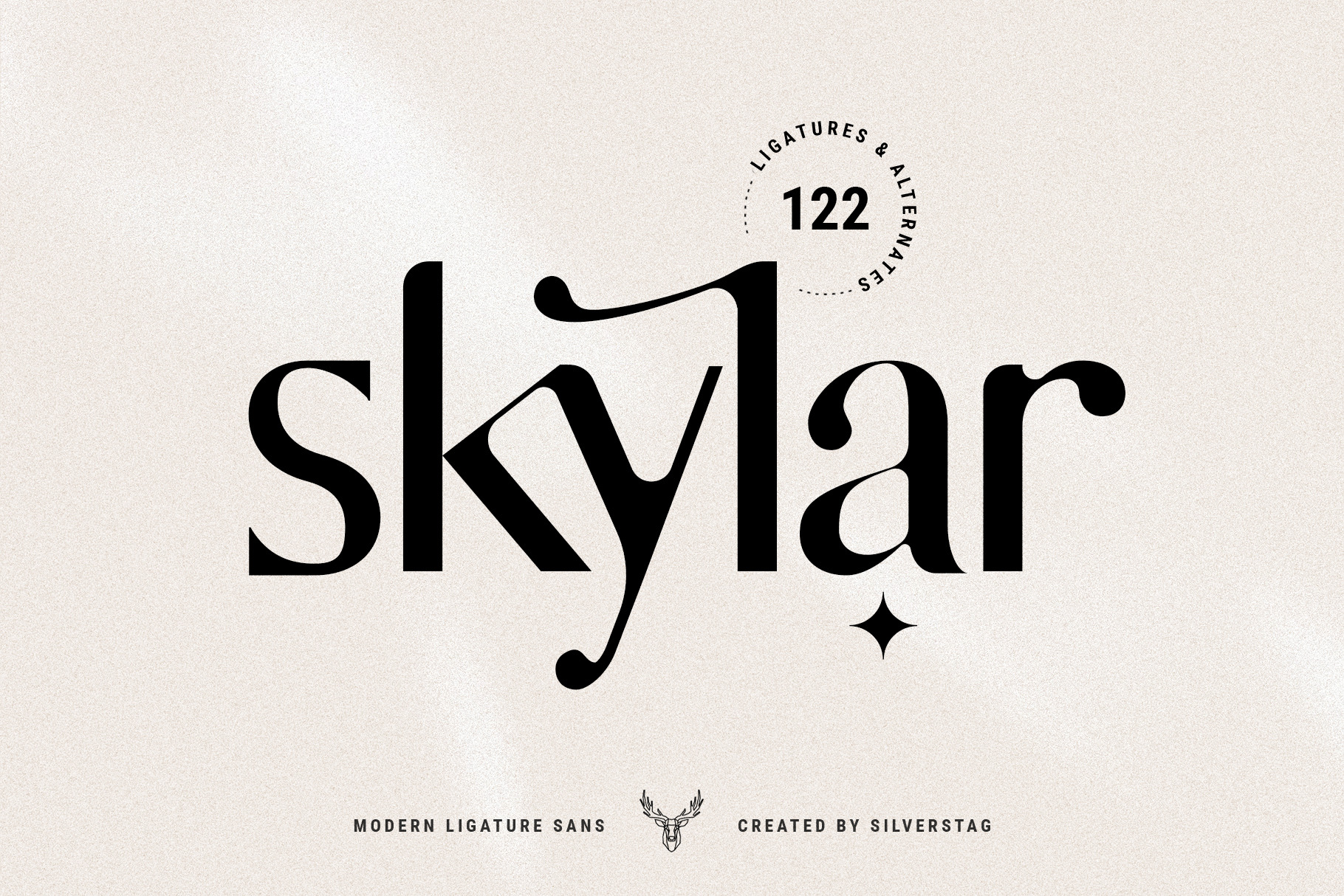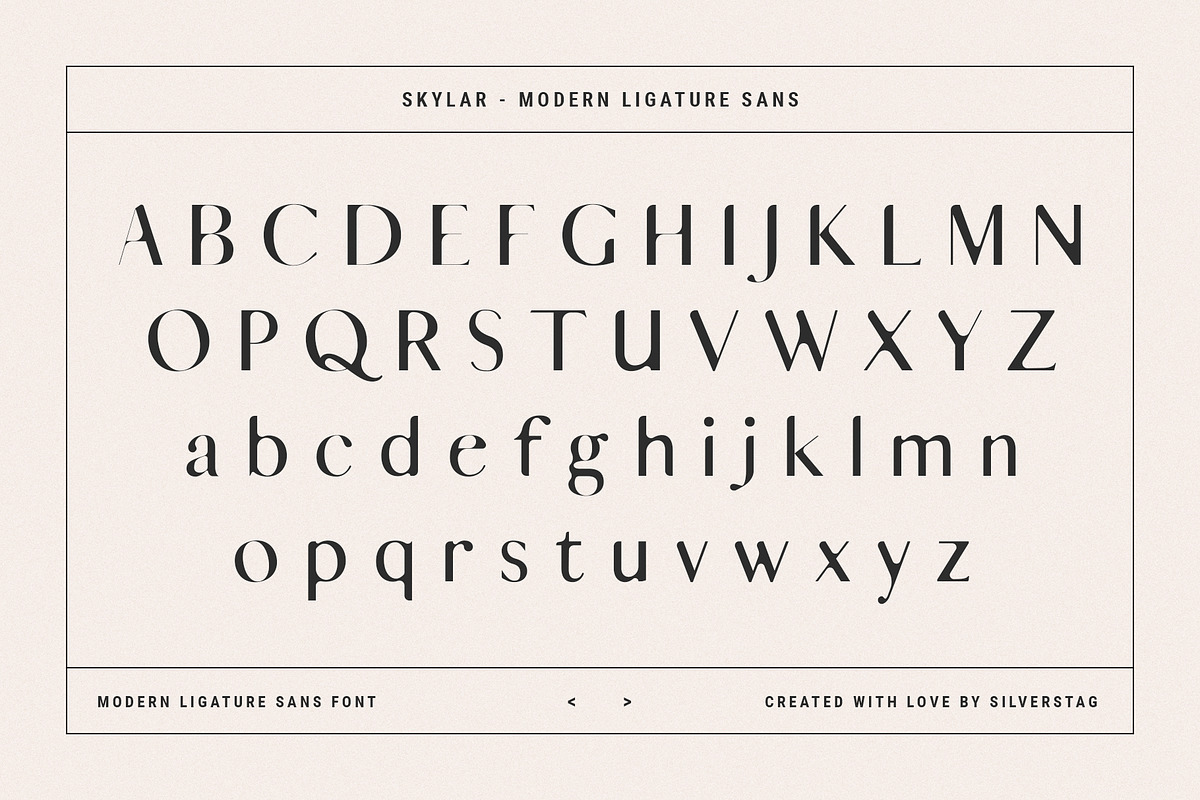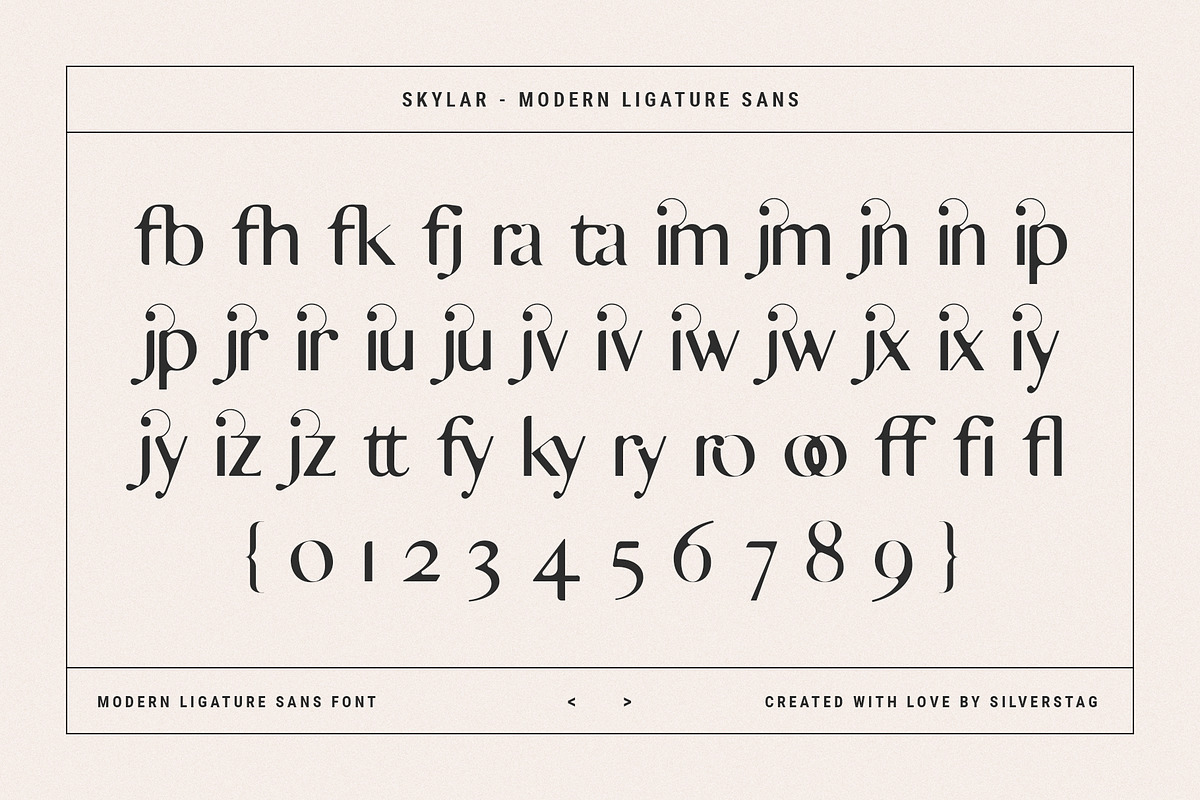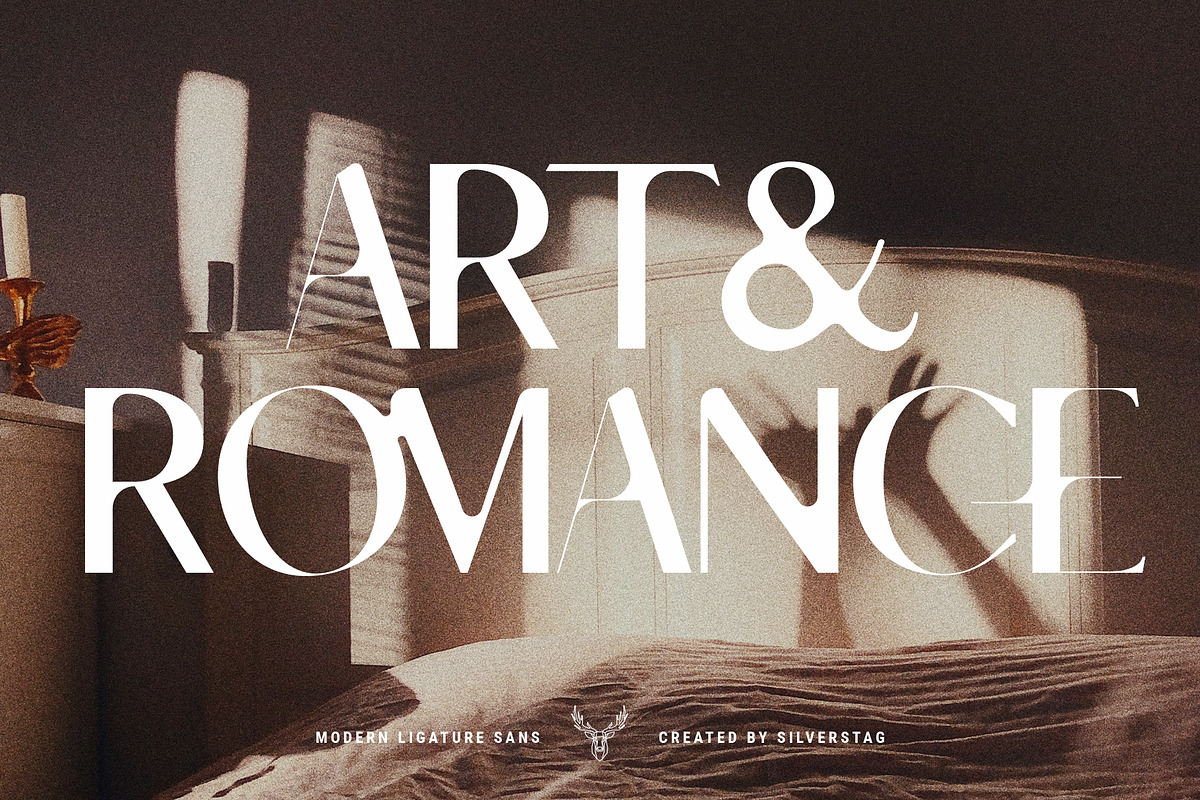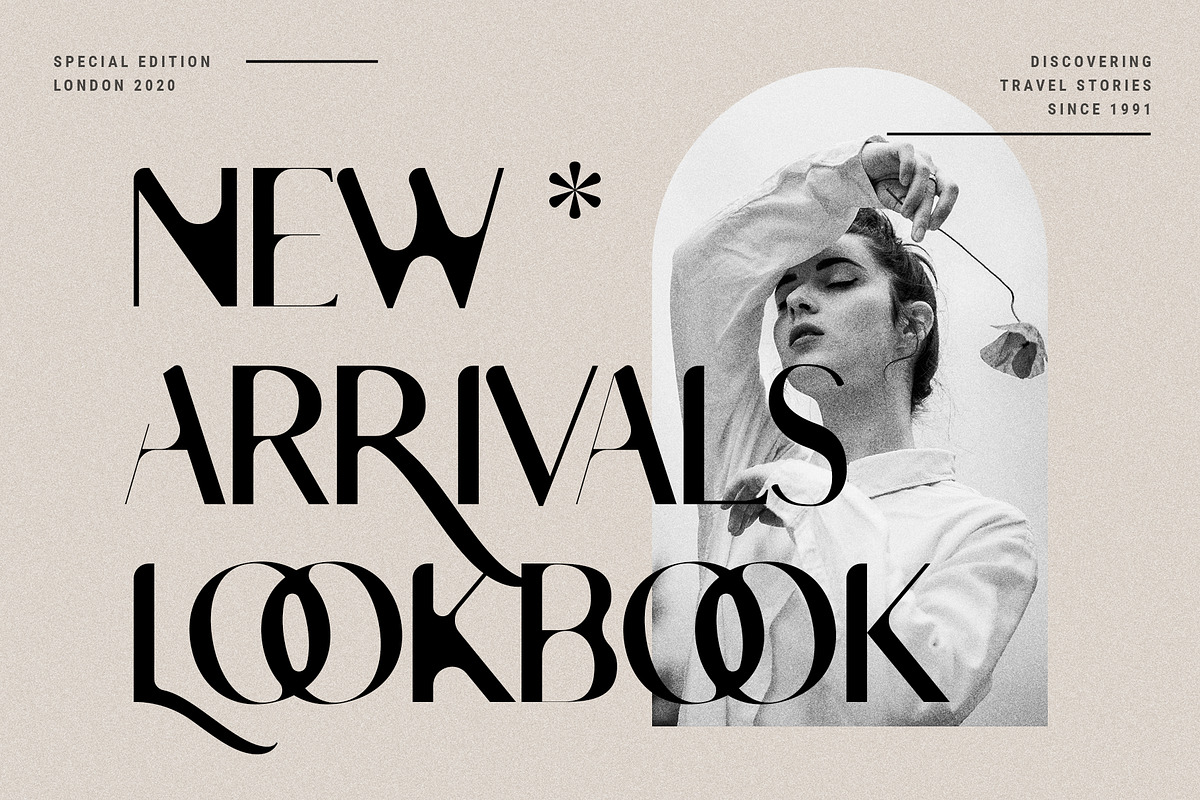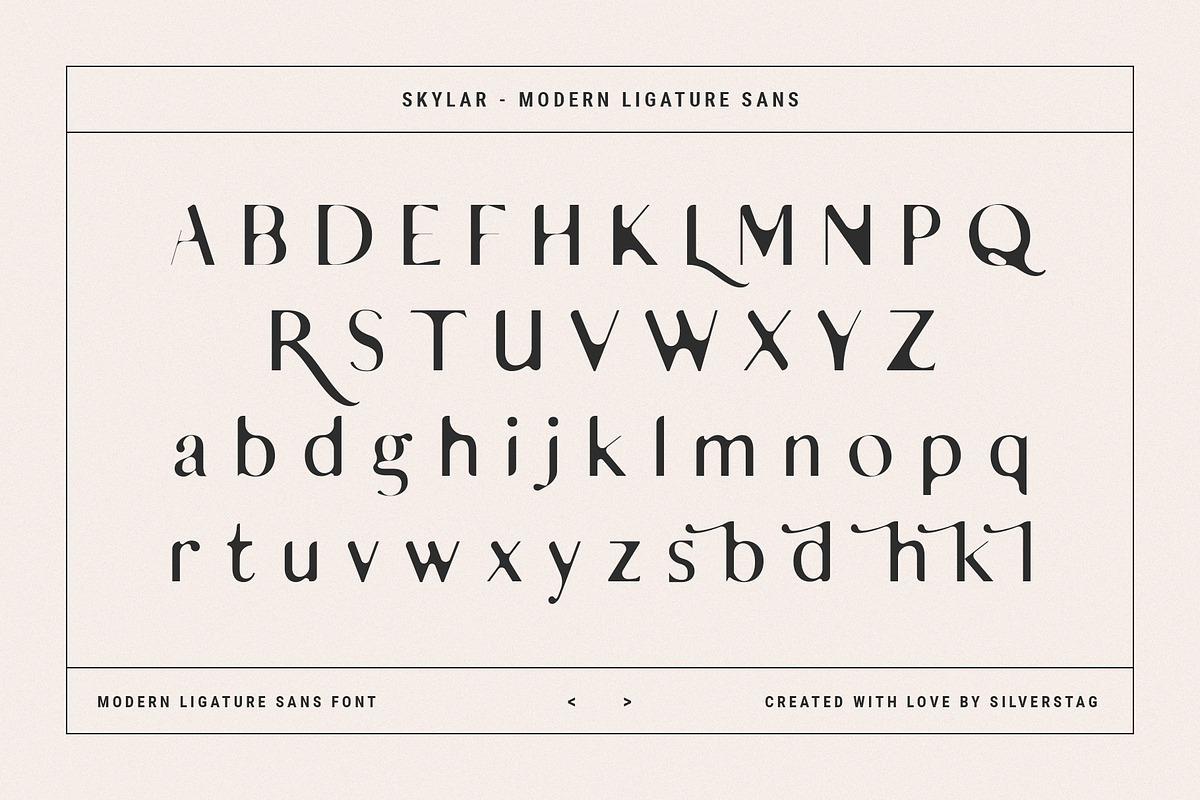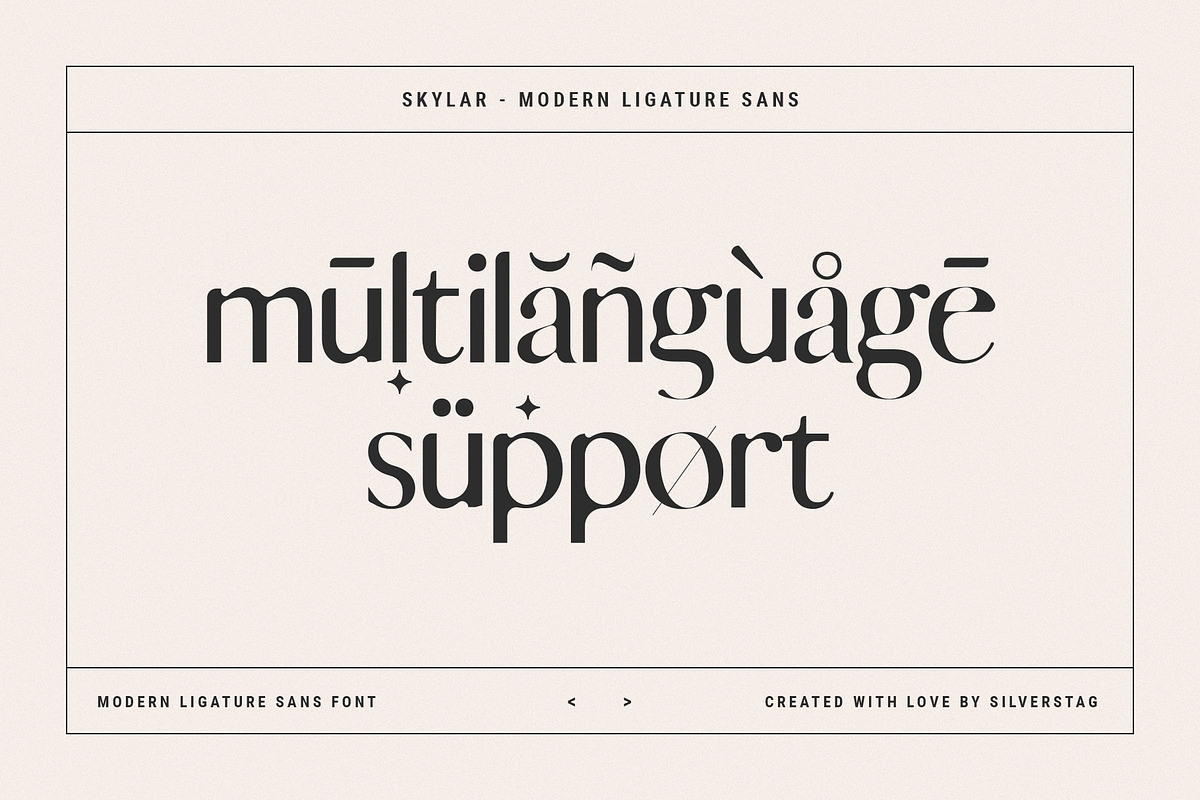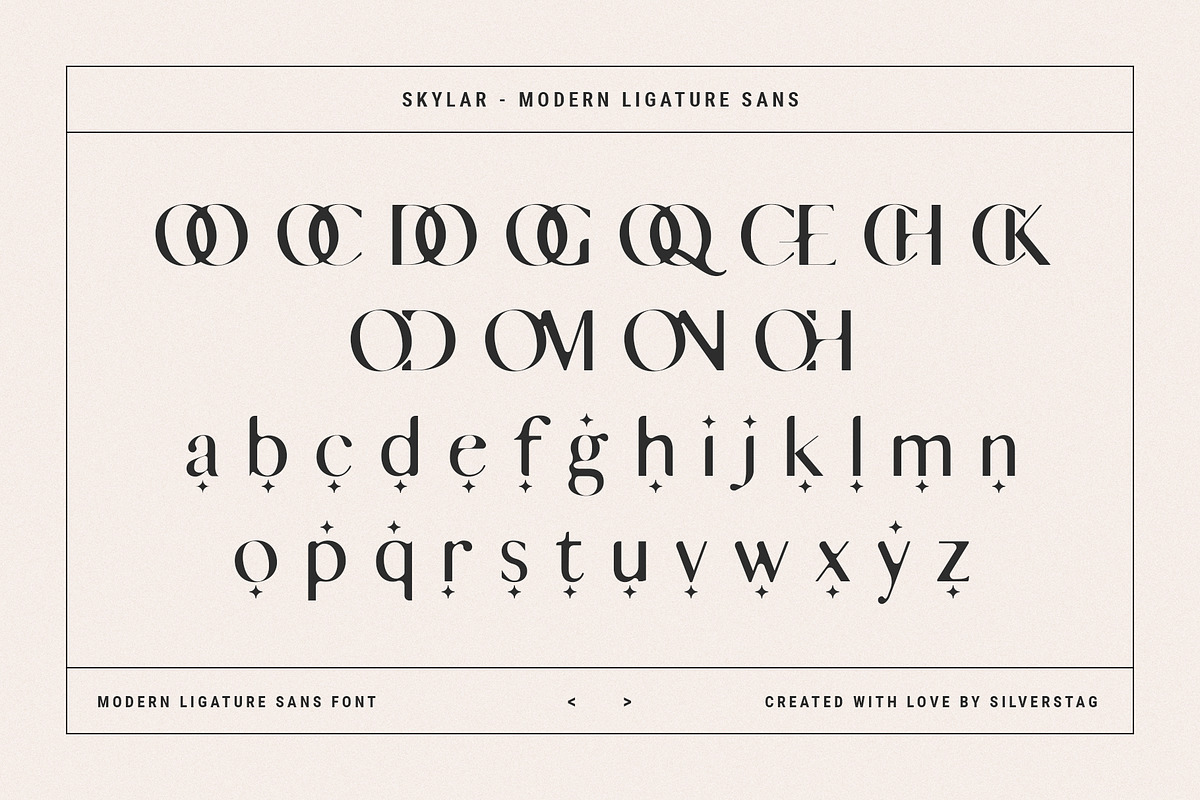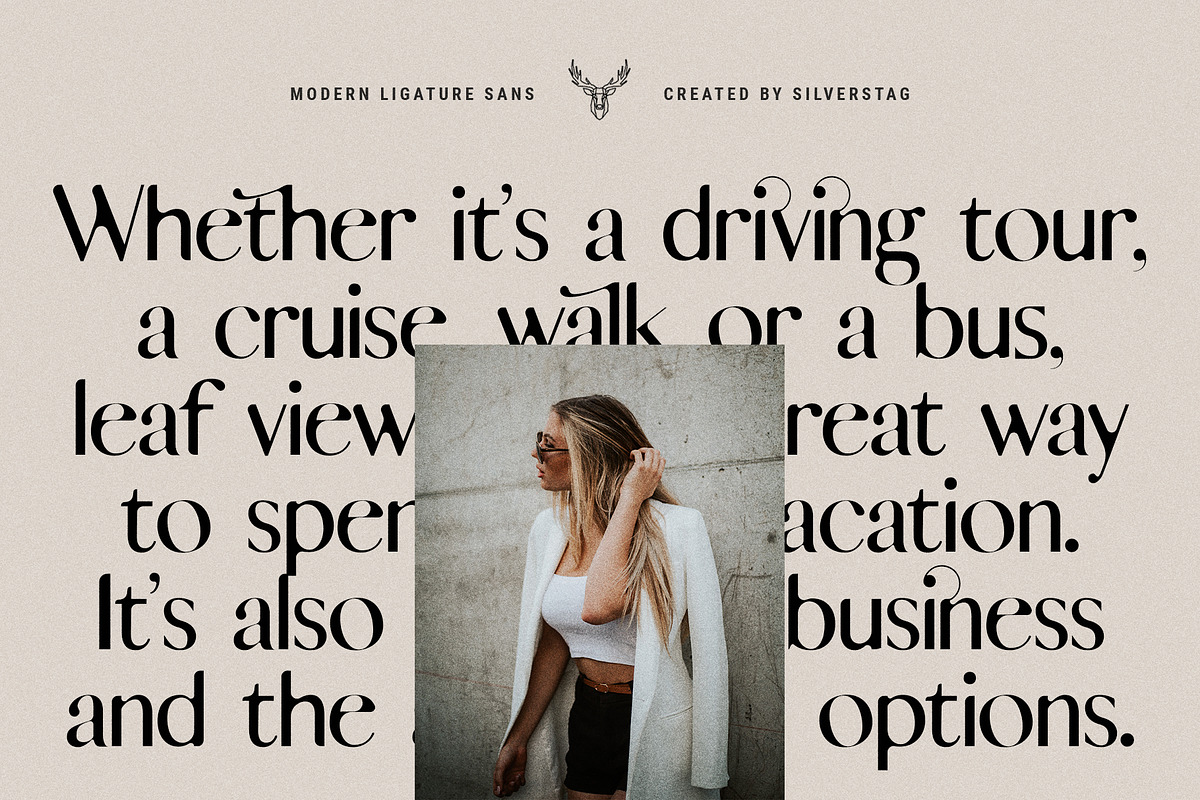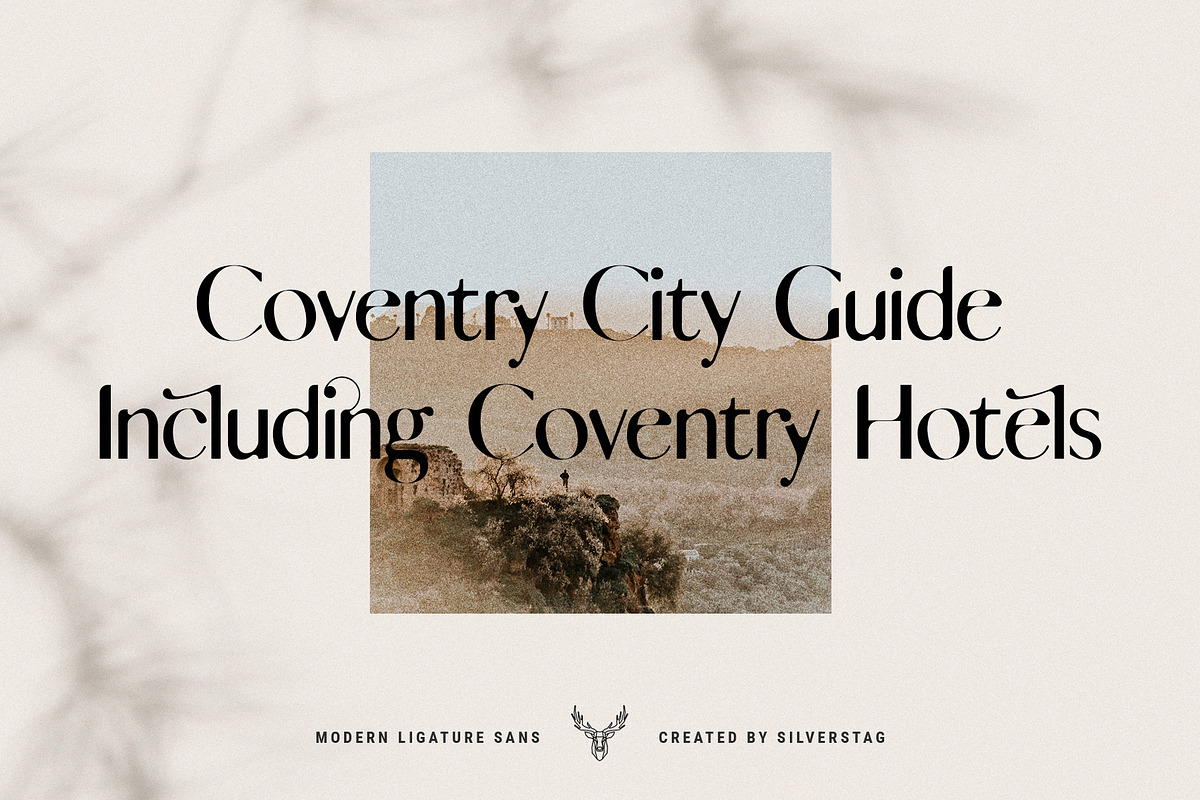
skylar - modern ligature sans font
skylar is a brand new and unique sans font I have been exploring and creating for quite some time now. I wanted to create a font that will work for everyone but at the same time offer unique ideas and elements. I have created a modern sans font with 122 ligatures and alternate letters. If you check out the screenshots above you will see you can use the font for your logo projects, website designs, magazines, and any other kind of graphic design.
With it's unique and creative ligatures skylar stands out and will make your projects stand out as well. just have a look at the "ky" ligature on the first picture and you'll see what kind of potential it has.
- 122 Ligatures & Alternate letters
- Lowercase and Uppercase letters
LANGUAGE SUPPORT:
The following letters are included: A À Á Â Ã Ä Å C Ç D Ð E È É Ê Ë I Ì Í Î Ï N Ñ O Ø Ò Ó Ô Õ Ö U Ù Ü Ú Û W Ẃ Ŵ ẄẀ Y Ý Ÿ Ỳ Ÿ Æ Œ ß Þ þ and many many more, in uppercase and lowercase so skylar sans supports a huge number of languages.